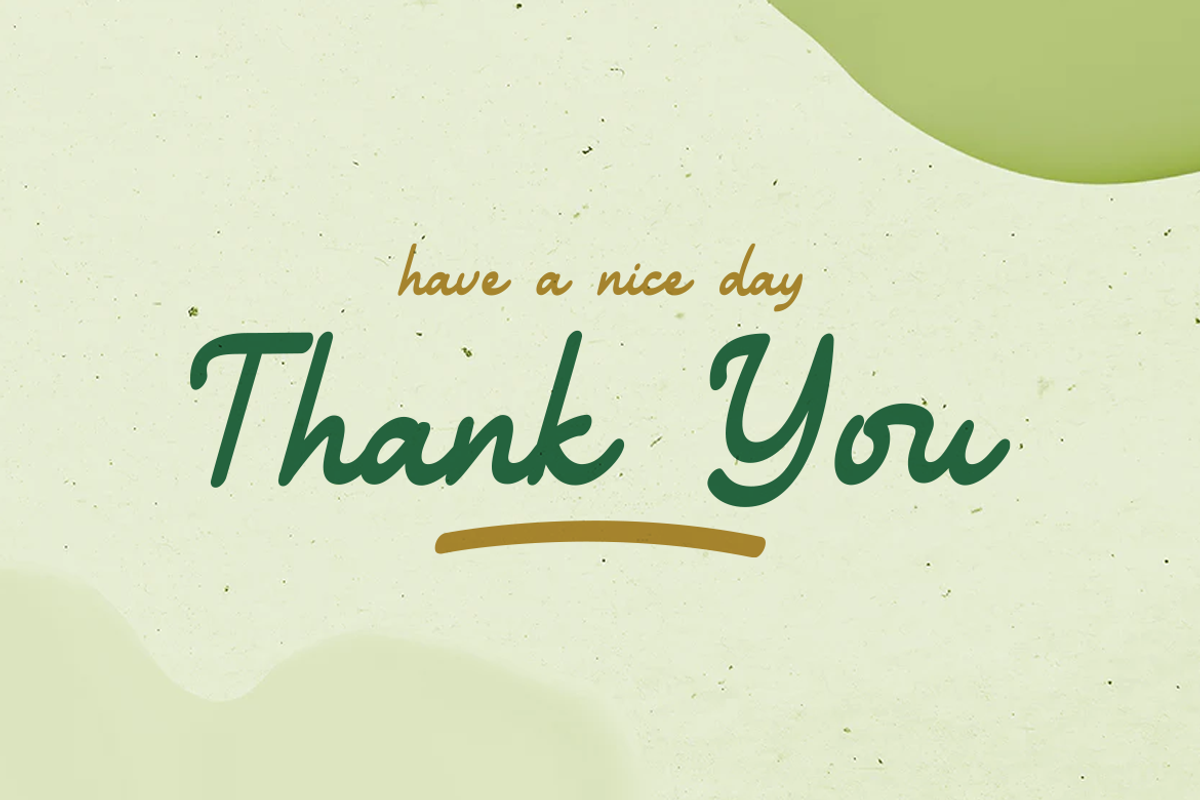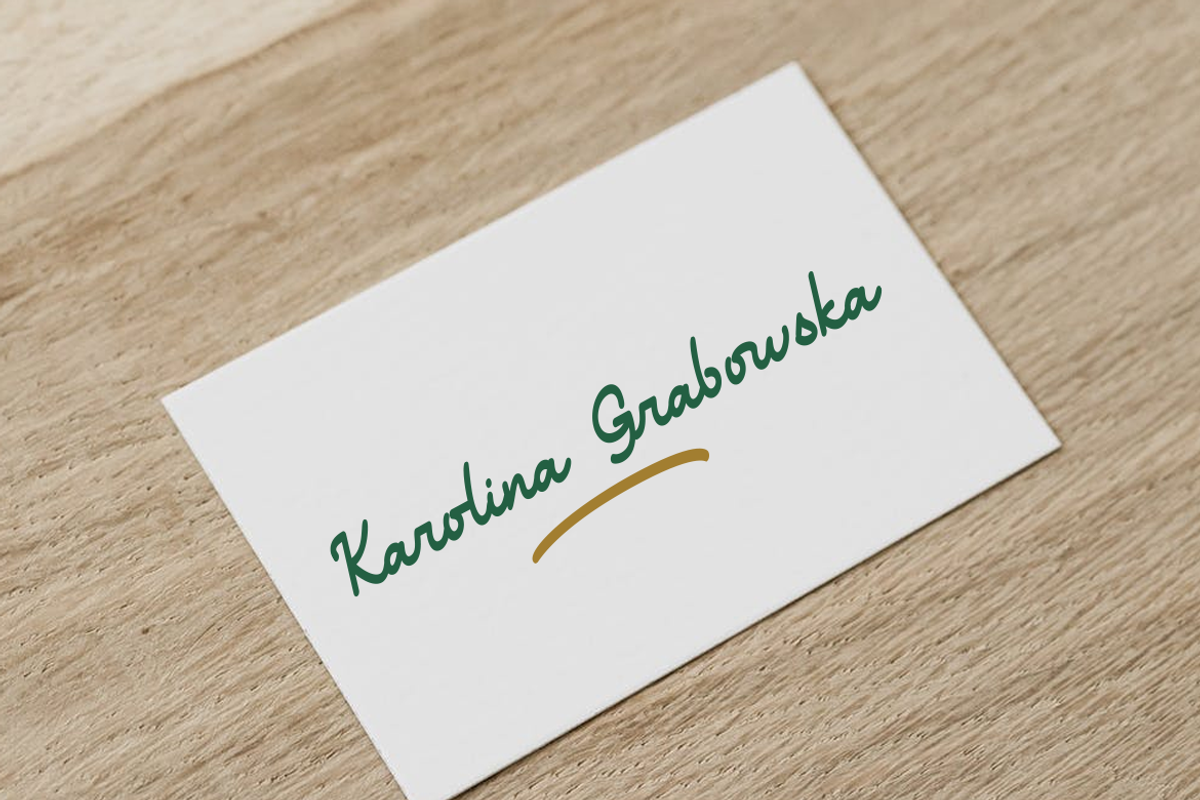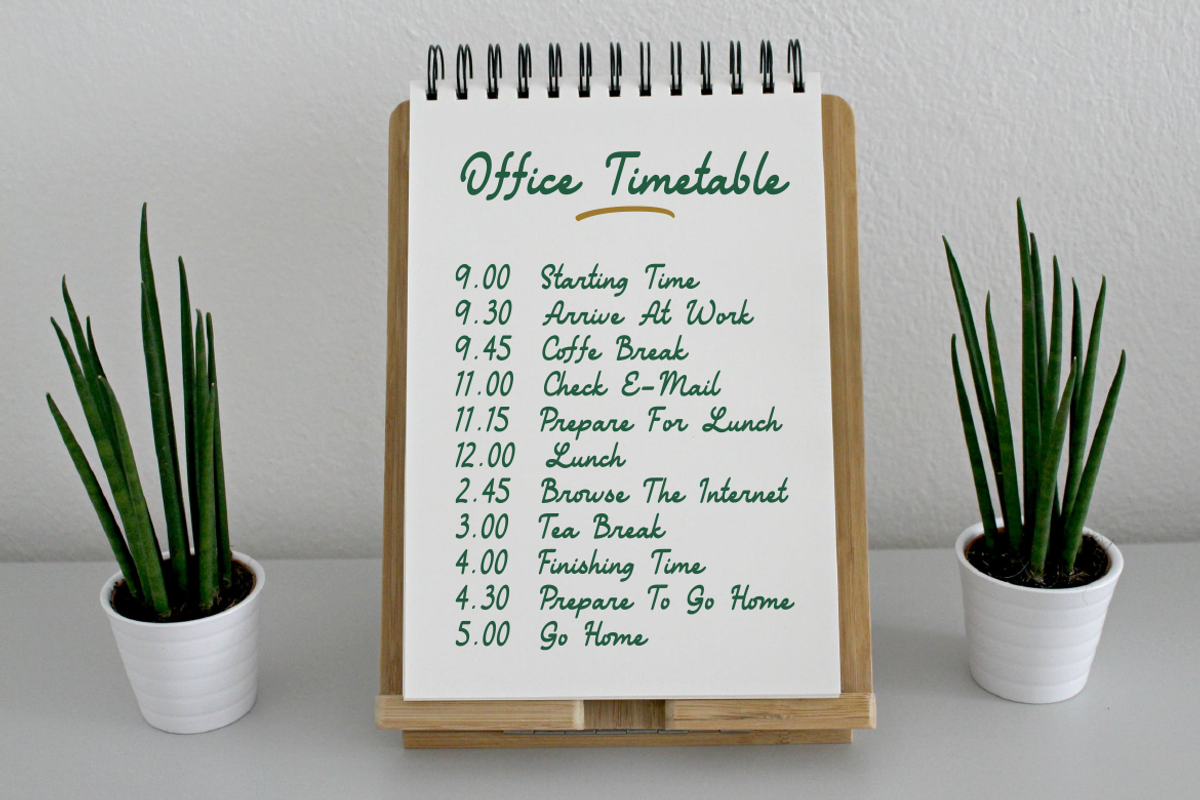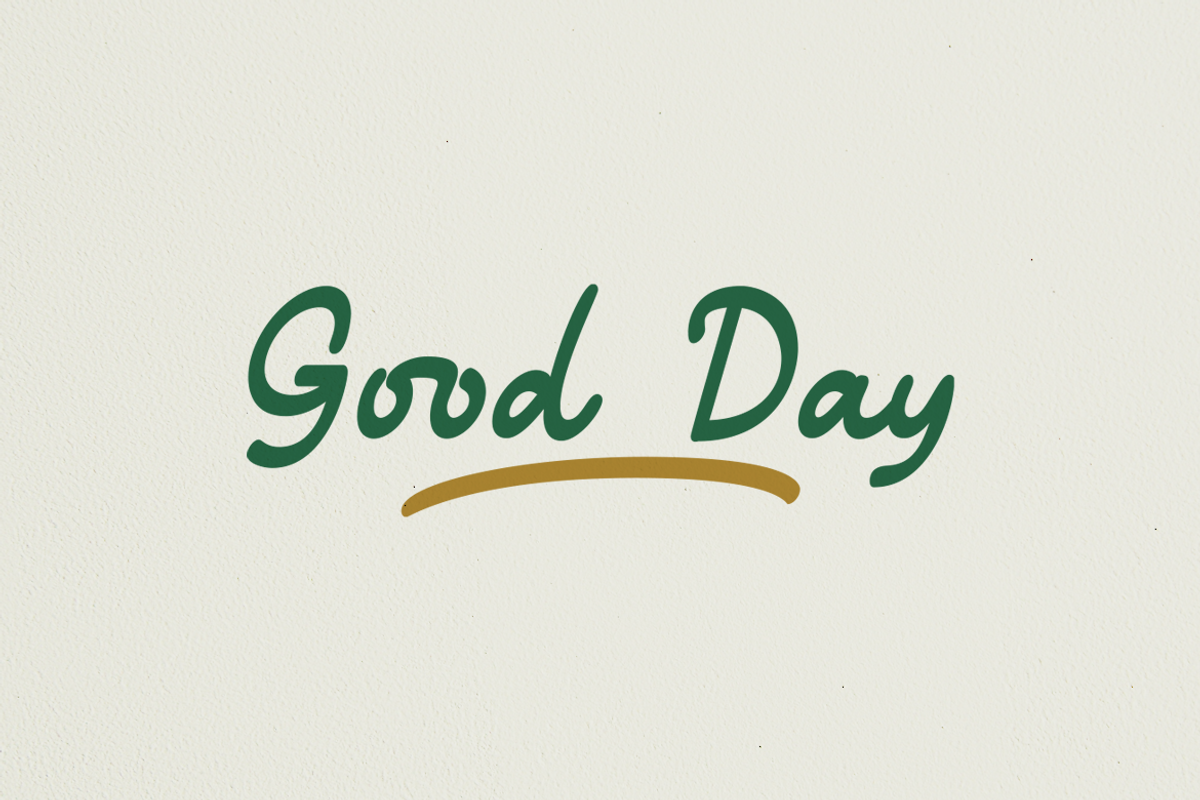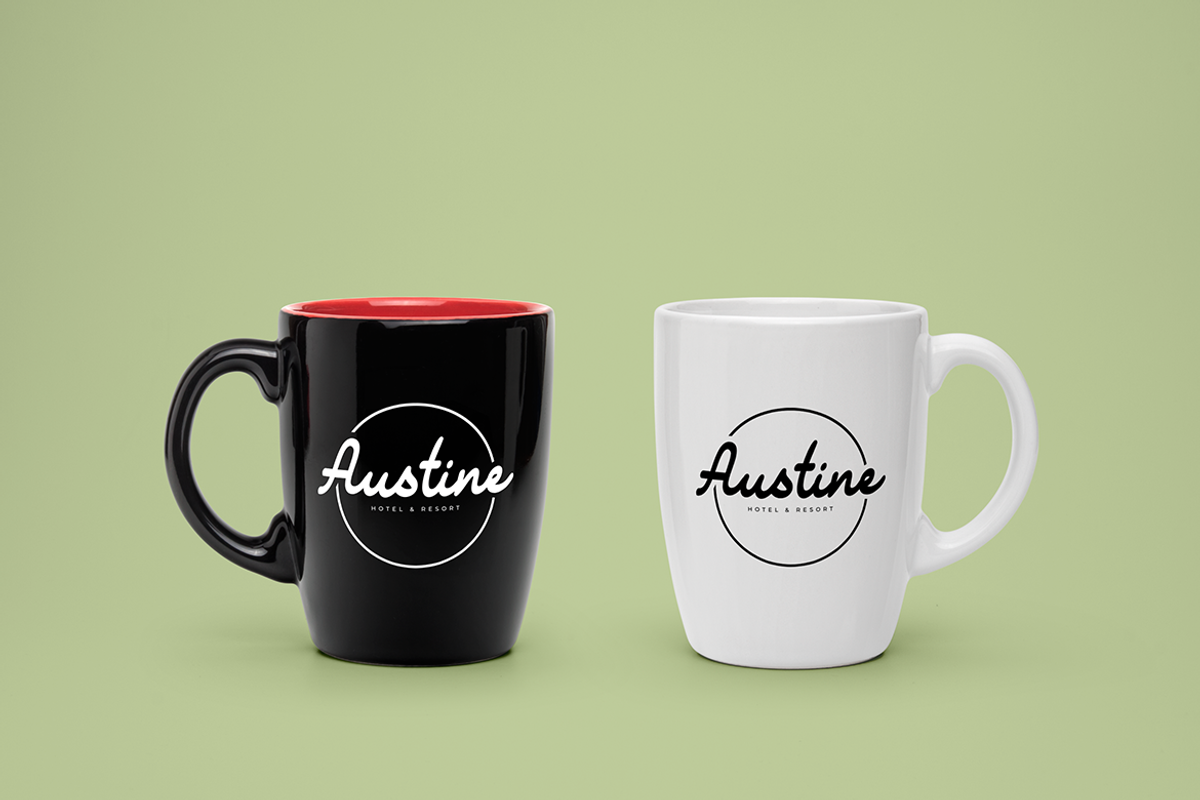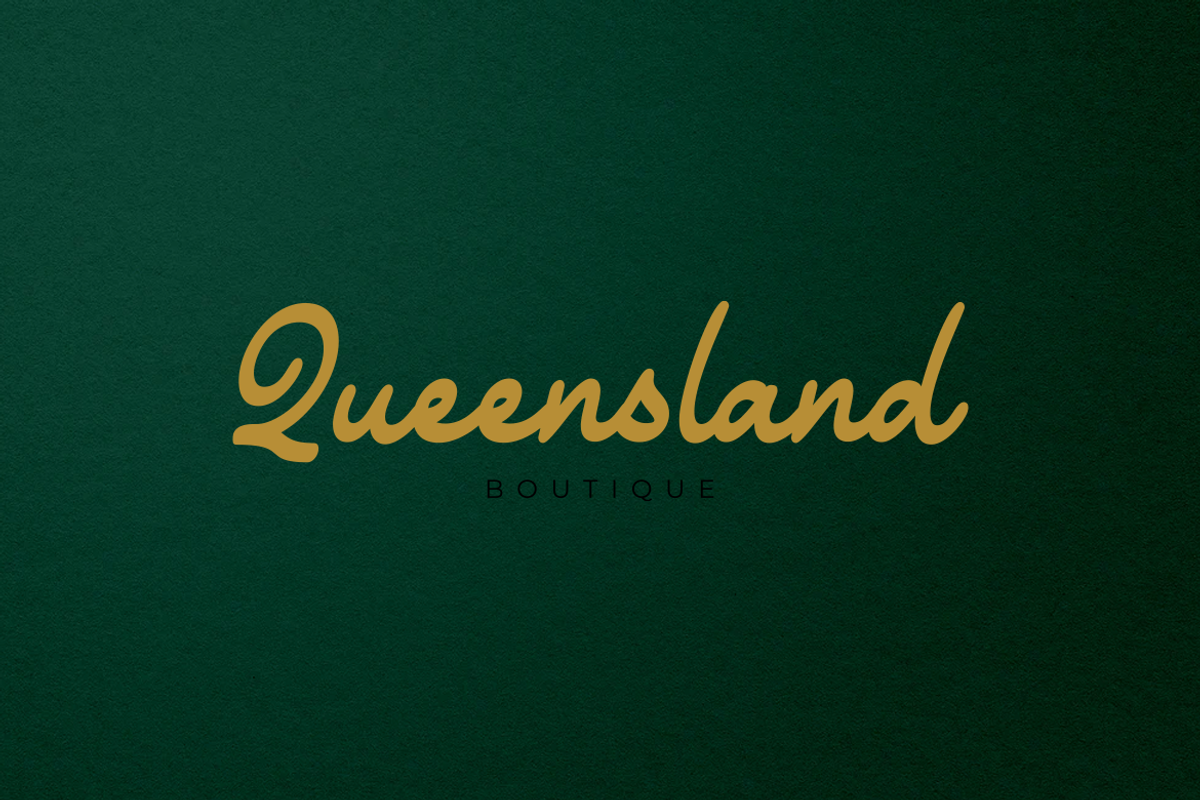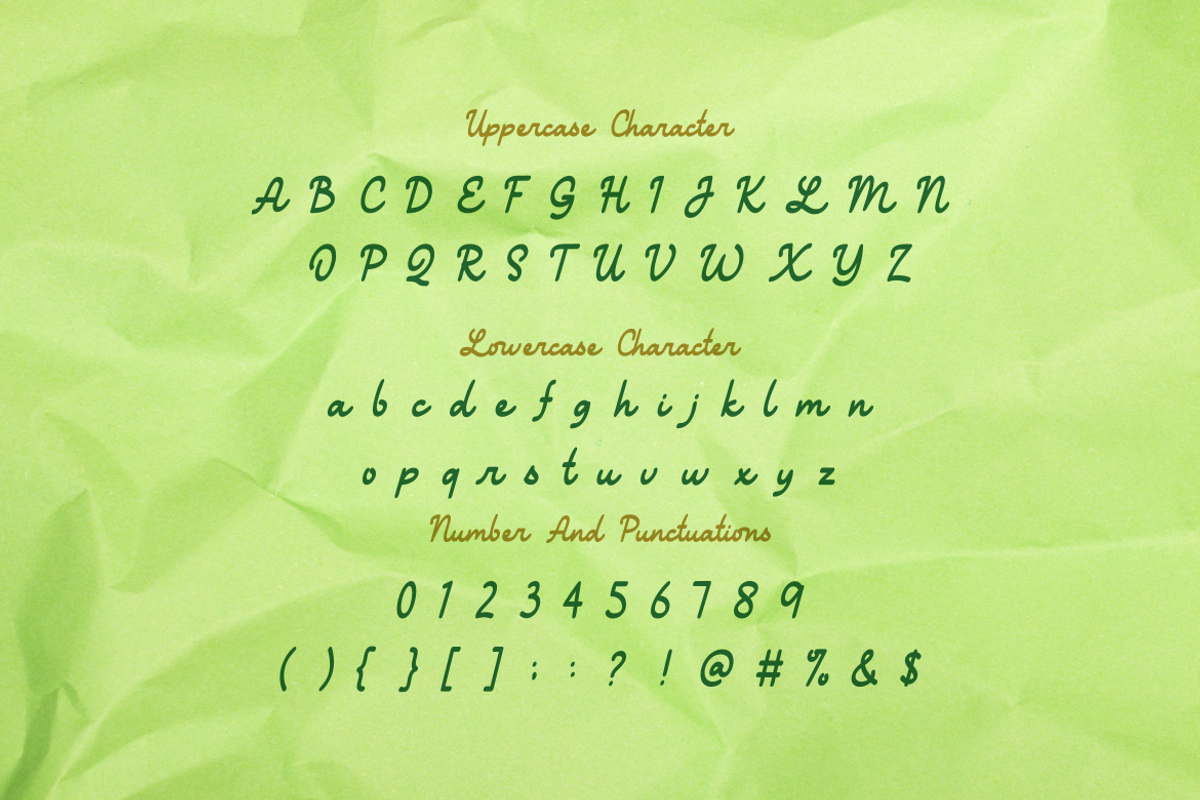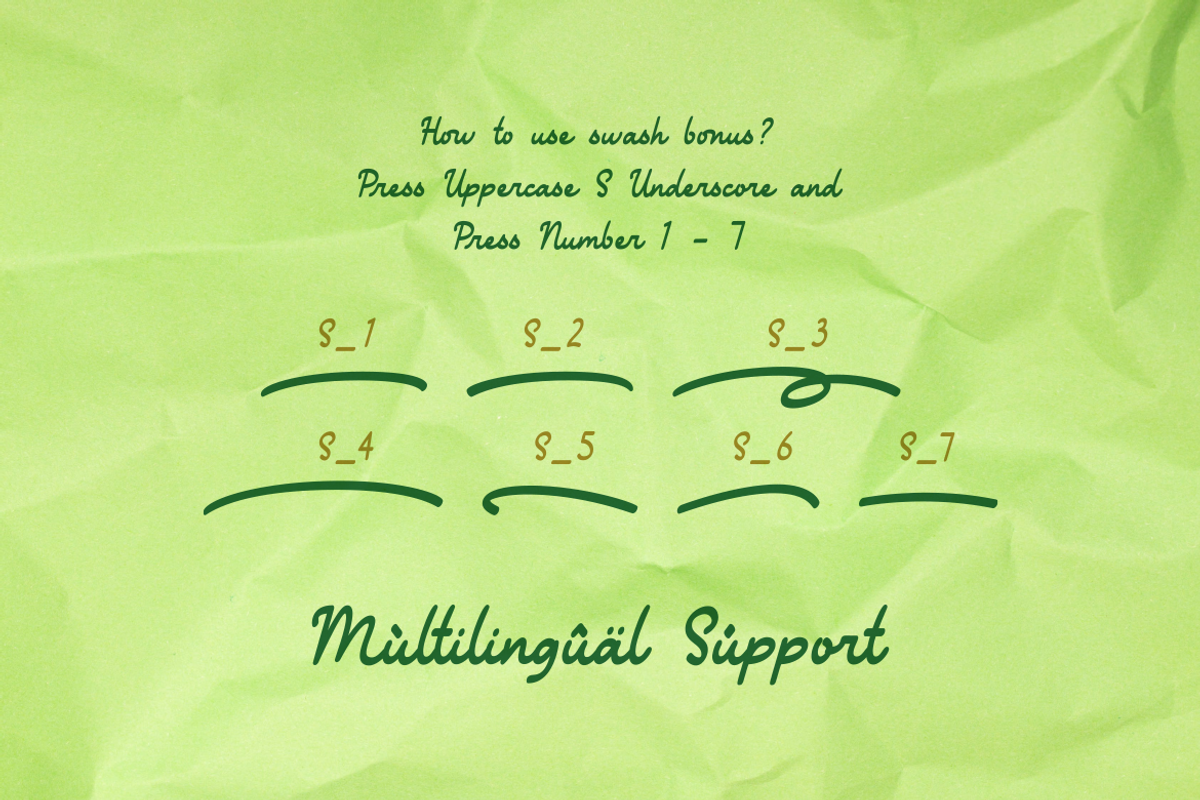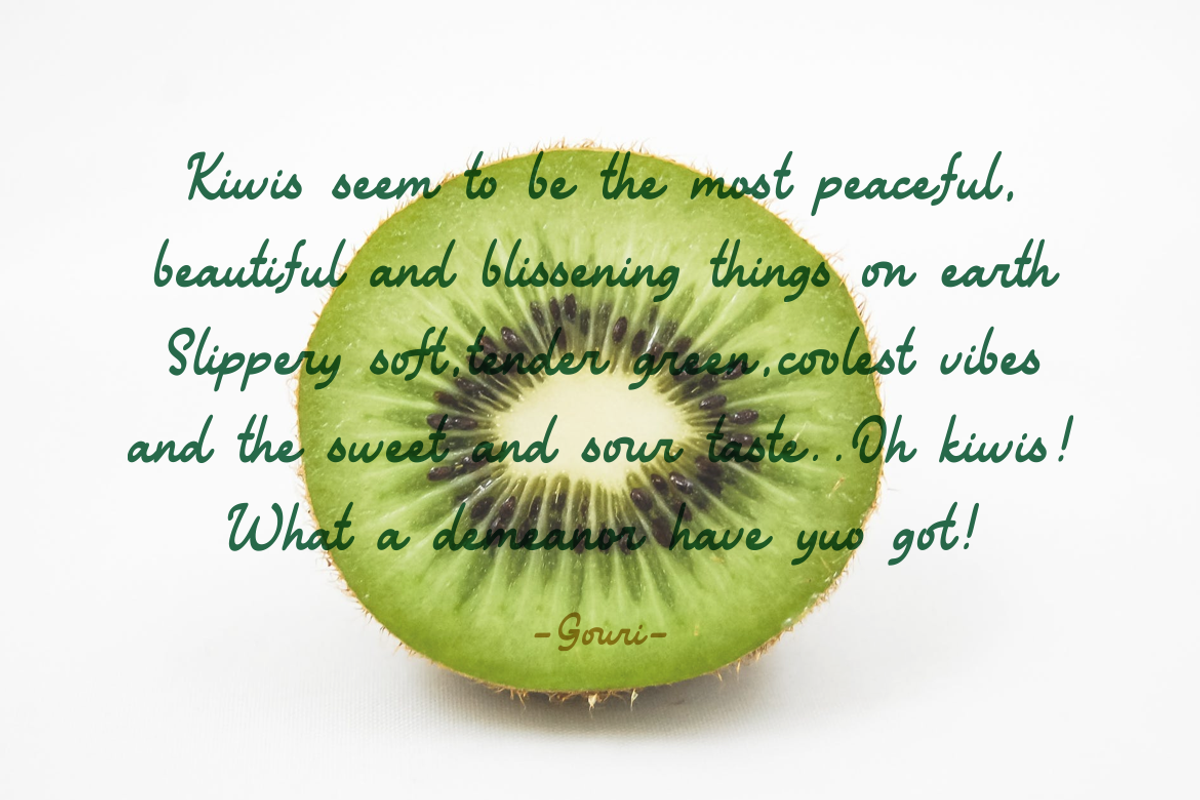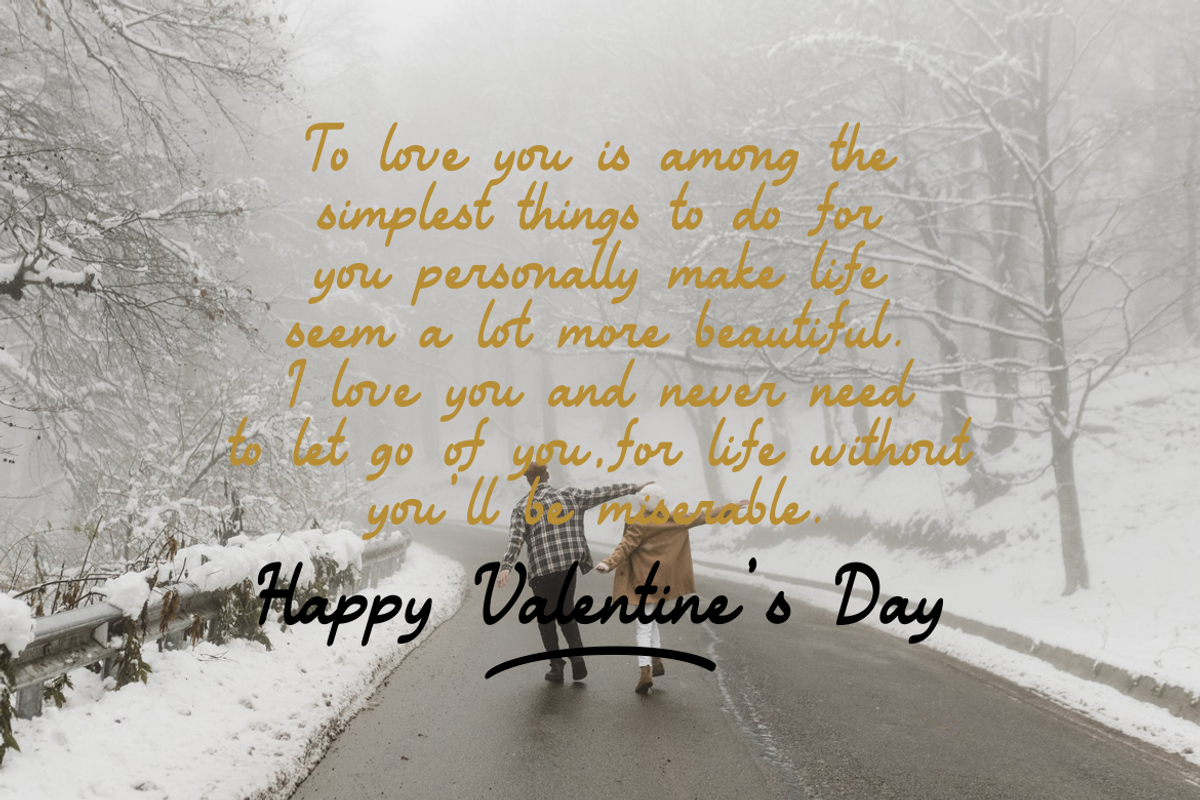
Good Day Script
Introducing our newest product Good Day script font.
Good Day is suitable for all your design project needs such as: logo design, branding, covers, posters, magazines, wedding invitations, greeting cards, quotes and more.
Bonus Swash, Ligature
Multilingual support - spread your message globally AÀÁÂÃÄÅCÇDÐEÈÉÌÍÎÏIÌÍÎÏNÑOØÒÓÔÕÖUÙÜÚÛWYÝŸÆßÞþ